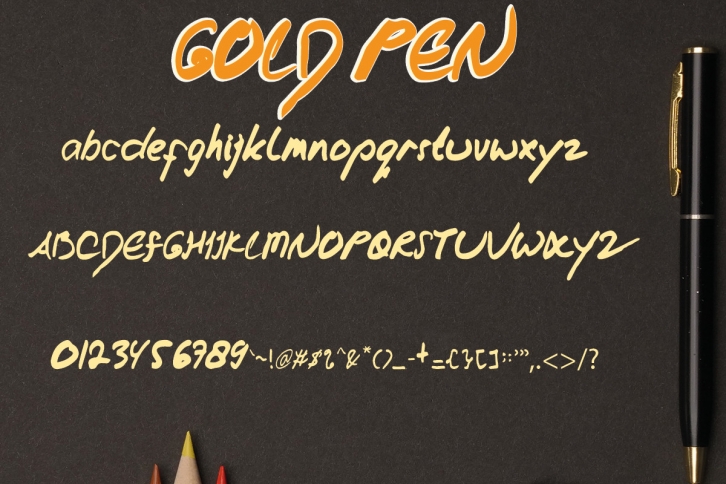
Gold Pen is a sweet and friendly handwritten font. Its natural and unique style makes it incredibly fitting to a large pool of designs. The only limit is your imagination!